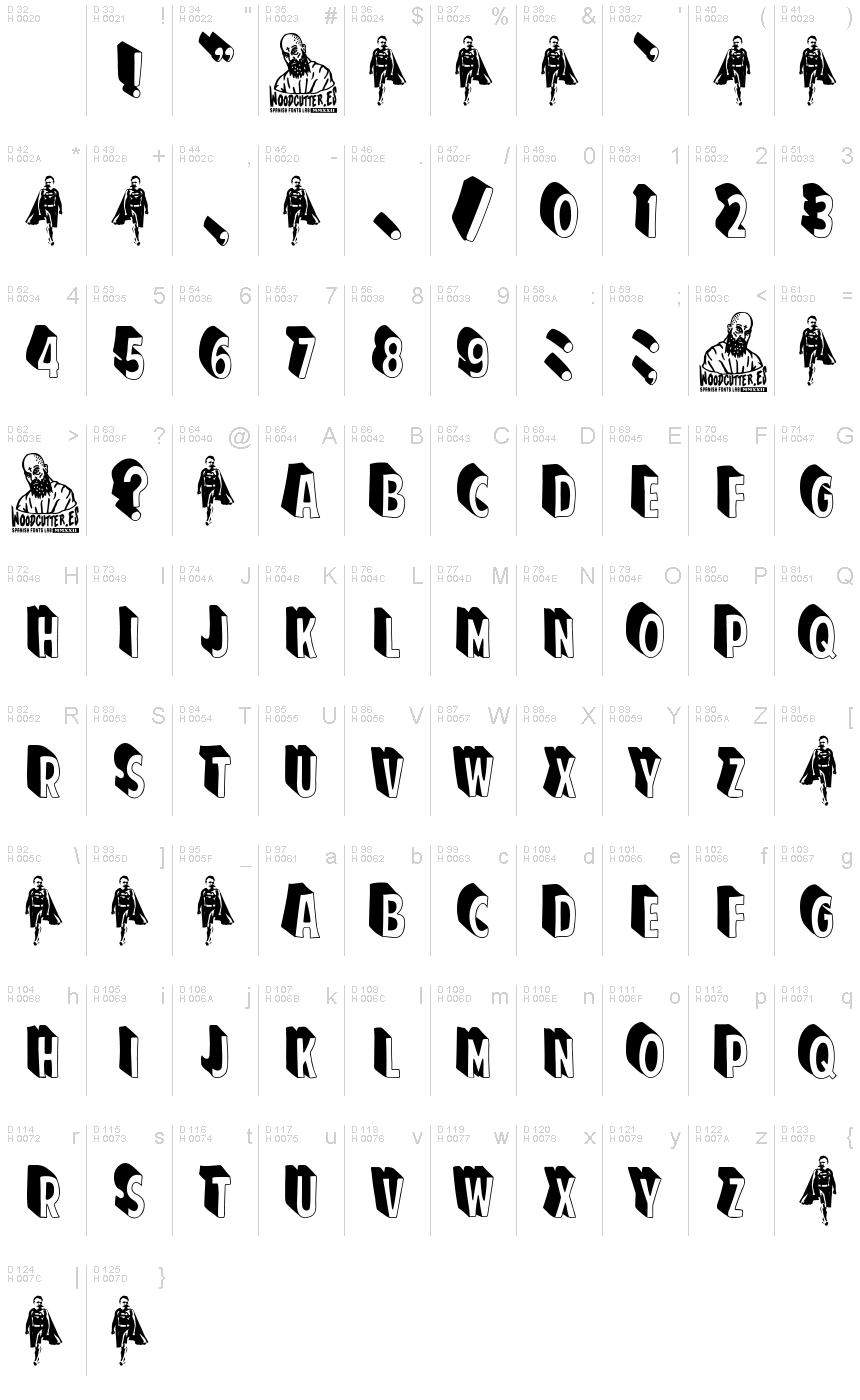
El Super Hombre
El Super Hombre font, designed by Woodcutter, is a dynamic display typeface with a vibrant 3D cartoon style. Its condensed form adds an eye-catching flair that's perfect for grabbing attention. With bold lines and playful dimensions, this free font is ideal for projects that need a fun and engaging touch.
El Super Hombre excels in creating striking headlines, posters, and digital graphics that demand notice. Its lively appearance makes it an excellent choice for children's books or entertainment-themed designs. Download this free font to elevate your creative projects with its unique character and charm.